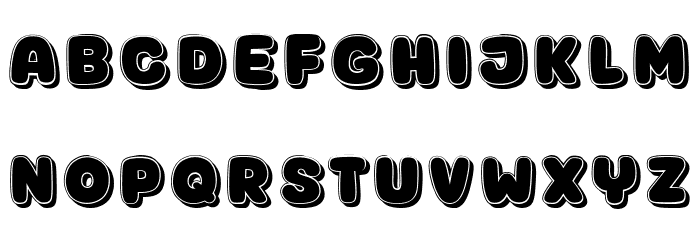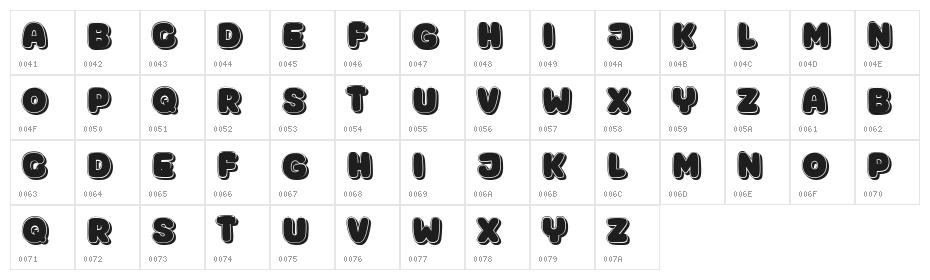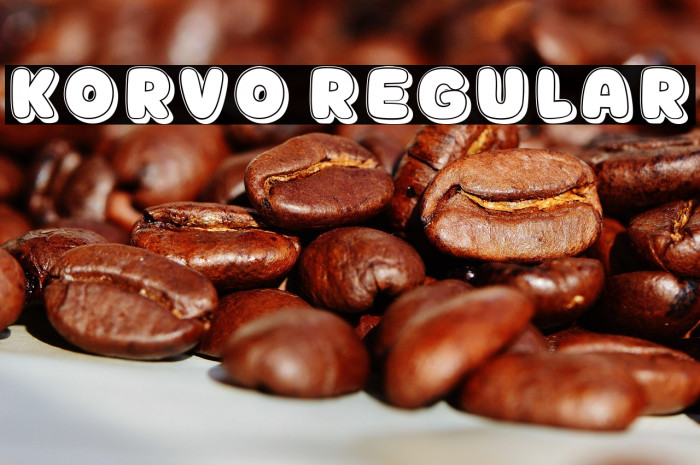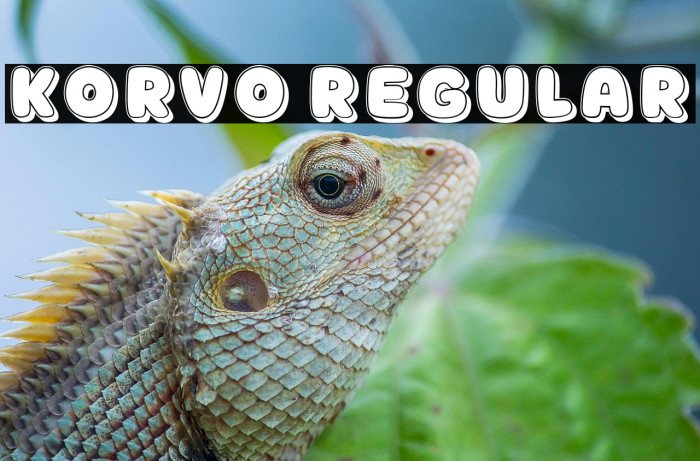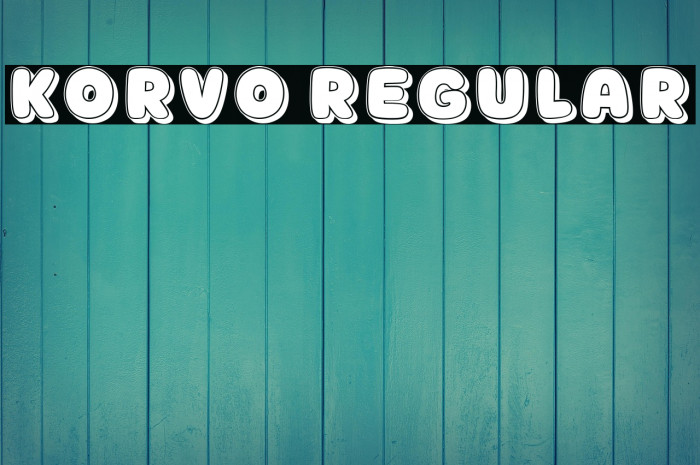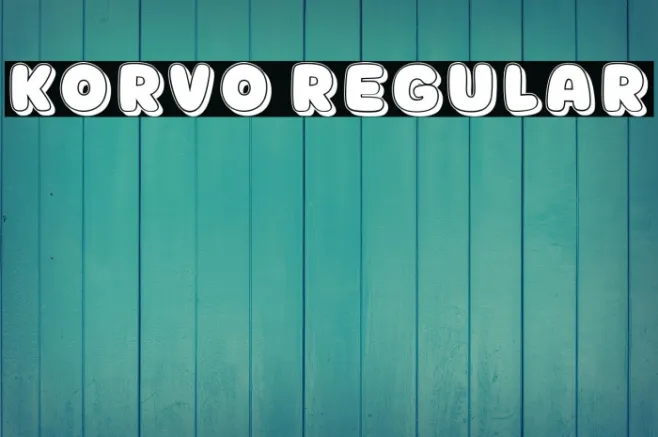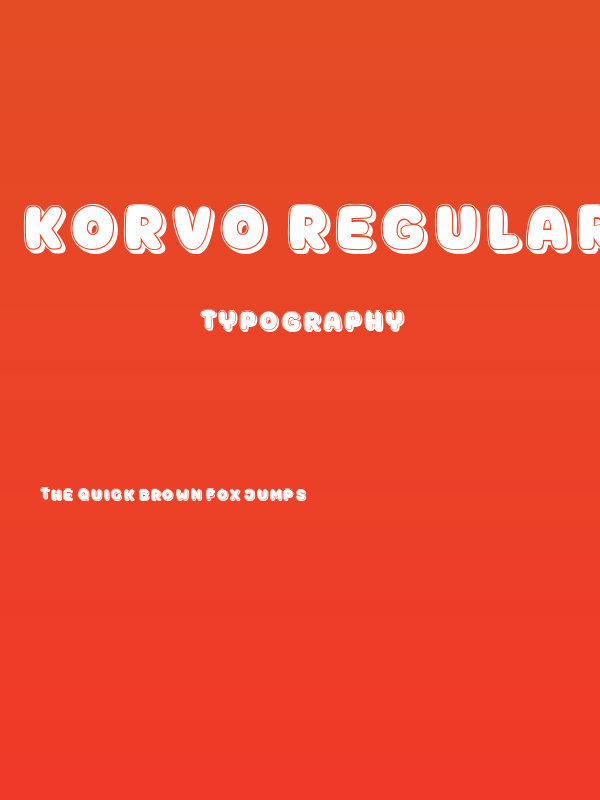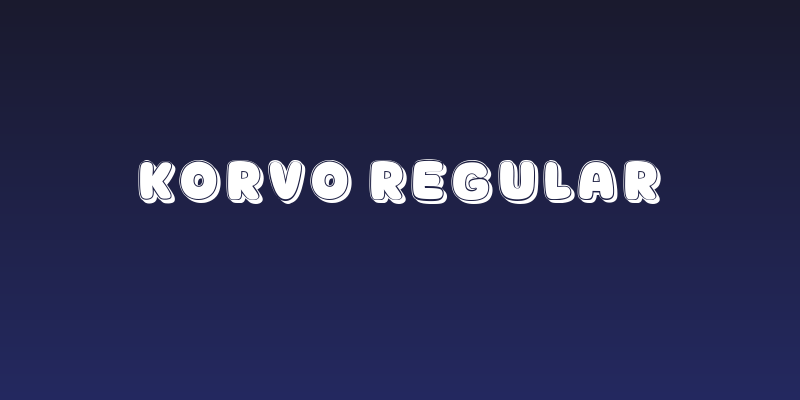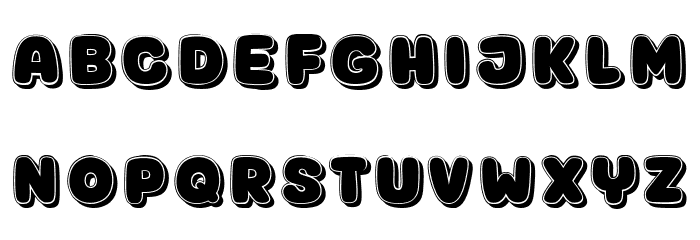
Korvo Regular Font
Korvo Regular Description
This font features a bold and playful style with thick, rounded letters that have a distinct outline. The characters are evenly spaced, creating a cohesive and visually appealing look. The uppercase and lowercase letters maintain a consistent design, enhancing readability while adding a touch of whimsy. The numbers and special characters follow the same design principles, ensuring uniformity across all text elements. This font's unique style makes it suitable for creative and informal applications, where a fun and engaging appearance is desired.
| Overall Style | Playful, Modern |
| Proposed Projects | Ideal for children's books, playful branding, posters, and social media graphics. |